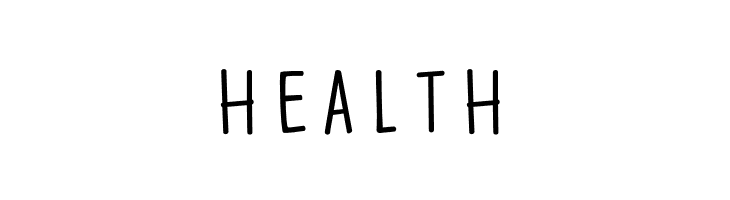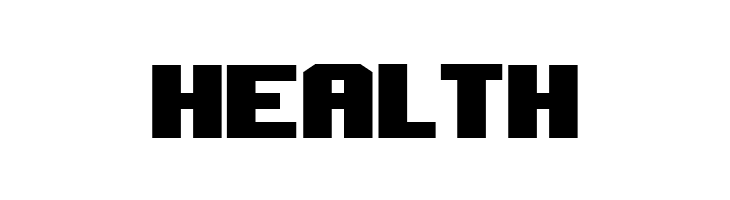
A playful, handwritten font with a casual and quirky style.
A bold serif font with strong, slightly condensed letterforms and prominent serifs.
A bold, playful font with a hand-carved, rustic appearance.
A decorative font with circular, spiral designs creating a bold visual impact.
A bold, geometric font with a futuristic and mechanical design.
A modern sans-serif italic font with clean lines and smooth curves.